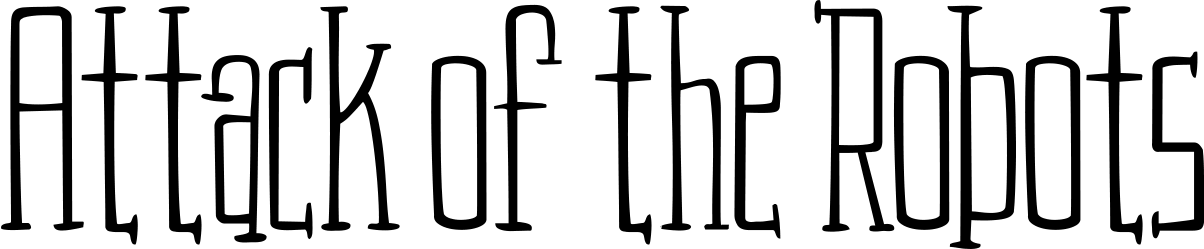
KG Attack of the Robots Font
Carry out a mysterious look for your typography, with this funny font. KG Attack of the Robots is modern and adds excitement to your content. It contains all the letterforms required, from mixed-case alphabets to numbers…
Carry out a mysterious look for your typography, with this funny font. KG Attack of the Robots is modern and adds excitement to your content. It contains all the letterforms required, from mixed-case alphabets to numbers and punctuation, suitable for reaching the most perfect and unique design.
The KG Attack of the Robots holds slim characters that furthermore have serif edges to deliver a more reliable feel, whether it’s for magazines, books, websites, or anywhere you need something more established.